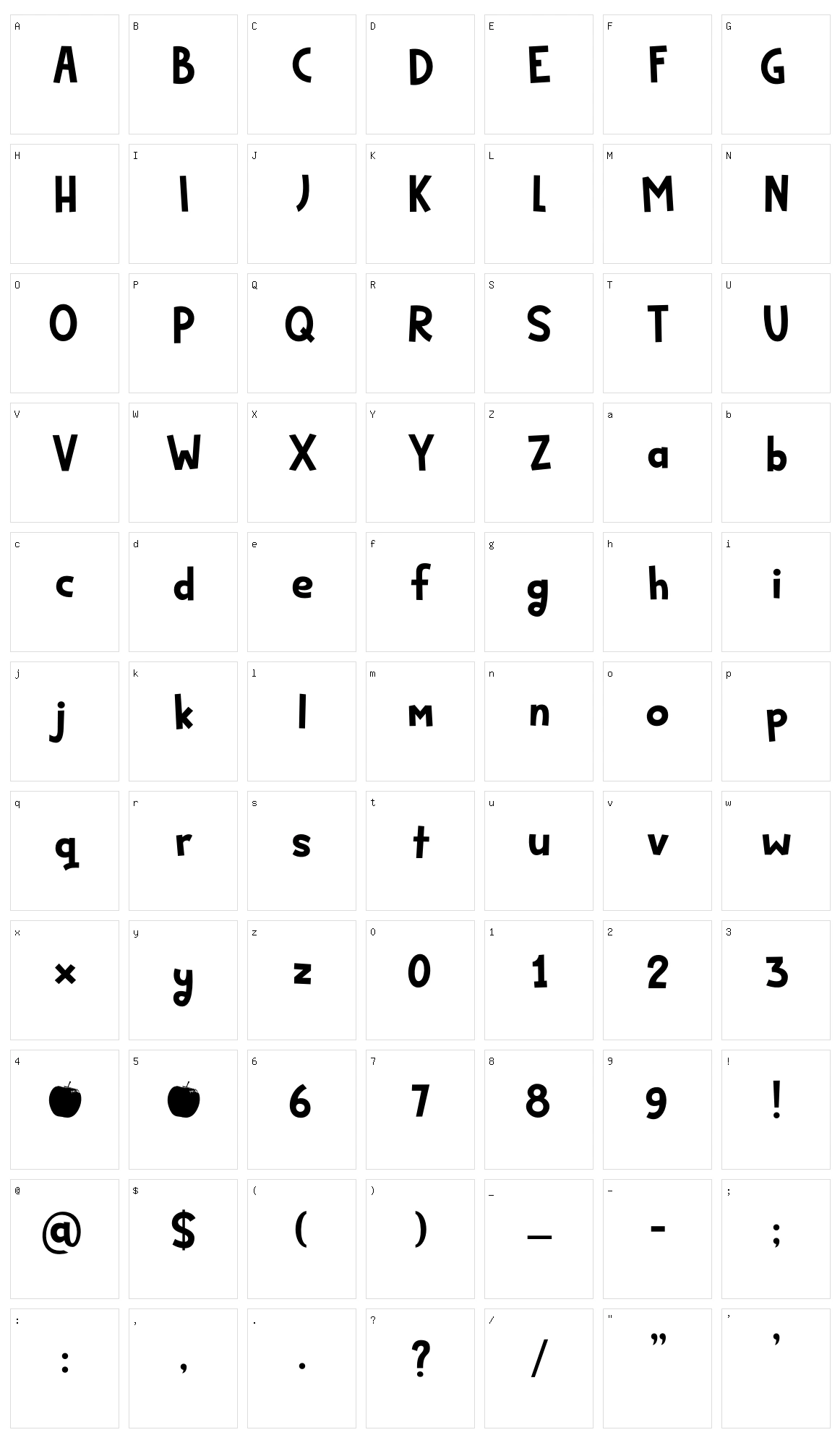
The free font Bakeapple is carefully designed by Hanoded, showcasing a thoughtful balance of creativity and usability and falls under the Cartoon font style. When you download the ZIP file, it contains only 1373.66 KB of font files, making it lightweight and quick to download. Please review the license details below to understand permitted usage and distribution rights. If license information is not available, we recommend using this font for personal projects only or contacting the author directly for commercial usage permissions.